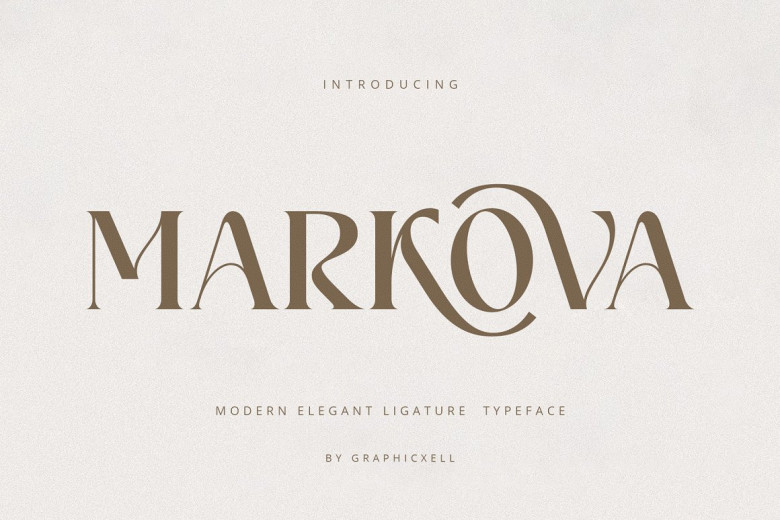
Markova Font
Markova Serif Font inspired by the famous logo doing its rounds everywhere otherwise in minimal style. It moves on to the purposes of designing templates, brochures, videos, advertising branding, logo…
Markova Serif Font